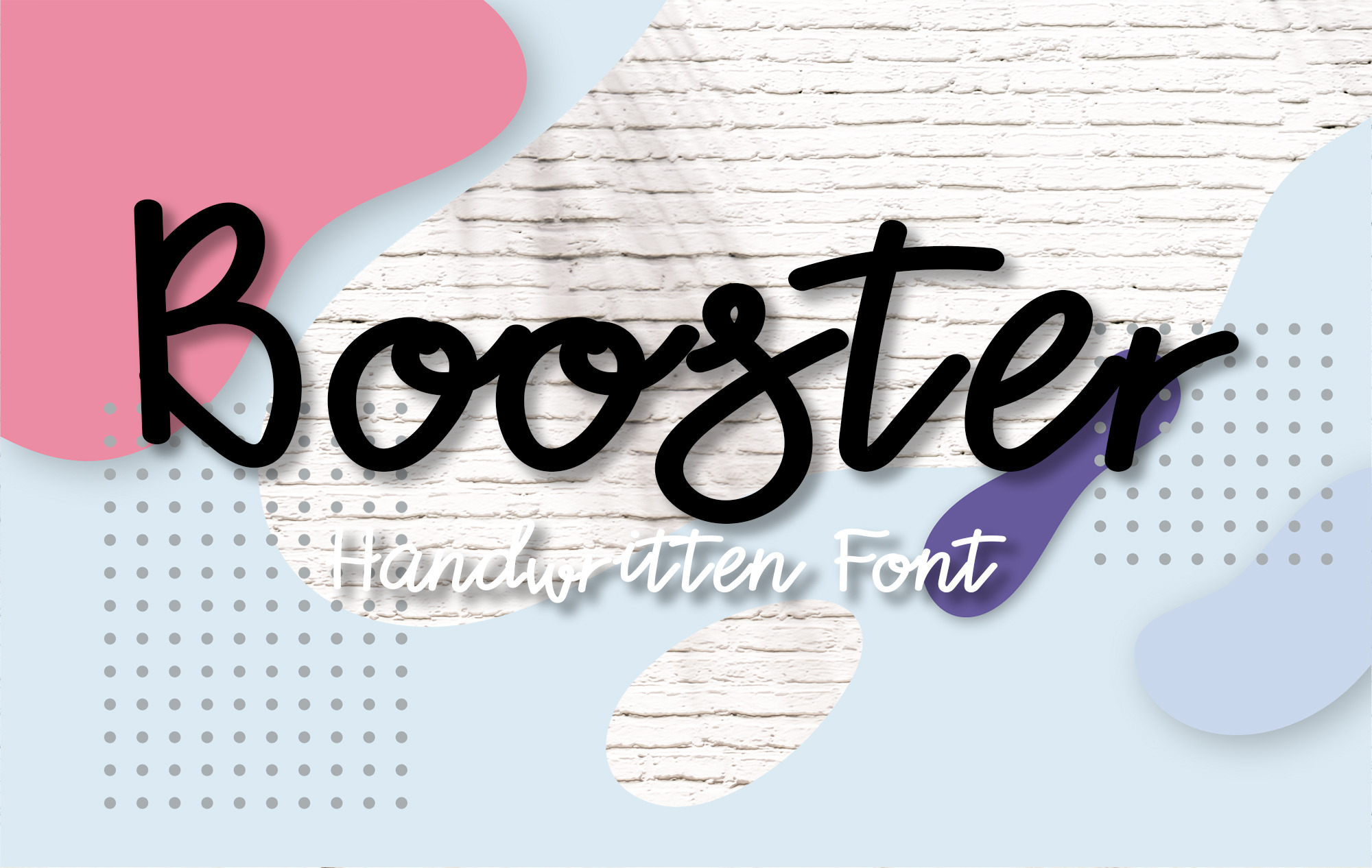
Booster font
If you are looking for a unique handwriting font, we recommend a Booster font that is a handwriting font written in the same line size, rounded and continuous. The font character style is designed to look Casual Make your illustrations or articles stand out like no other. And you will fall in love with it. Thank you